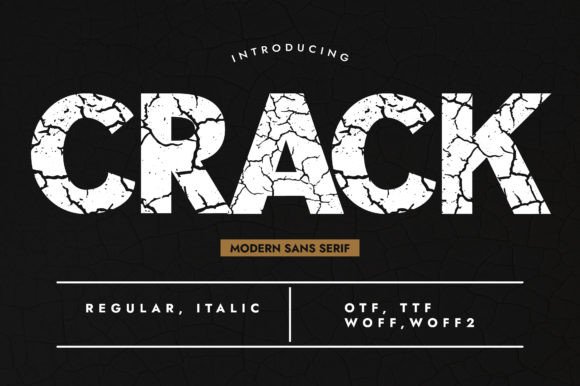
Looking for the perfect font to enhance your horror story? Look no further than Crack Font! This modern and revolutionary sans serif typeface, created by Minimalistartstudio, is the perfect addition to any designer's toolkit.
One of the key features of Crack Font is its textured, grungy appearance, which instantly grabs the eye and adds a unique touch to any design. This makes it perfect for use in headings, large-scale banners, posters, and more.
But Crack Font isn't just for horror themes - it's versatile enough to suit a wide range of design needs. From action movie titles to game titles, Halloween-themed designs to anything that requires a textured look, Crack Font is the ideal choice.